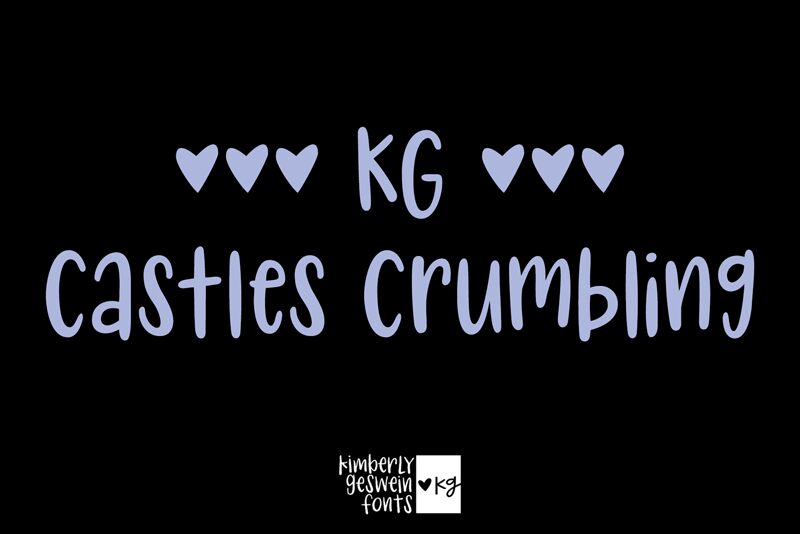
KG Castles Crumbling Normal
KG Castles Crumbling is a captivating, handwritten font crafted by the talented designer Kimberly Geswein. With its condensed, stylized strokes, this font exudes a sense of whimsical charm and vintage elegance. The unique character shapes and fluid transitions between letters create a visually striking and emotive aesthetic, evoking a sense of timelessness and imperfect beauty.
This versatile font lends itself well to a variety of design applications, from rustic and vintage-inspired projects to modern and minimalist designs. Its condensed width makes it an excellent choice for headlines, titles, and short-form text, allowing for a visually compelling and space-efficient presentation. KG Castles Crumbling's handwritten charm also makes it a suitable option for wedding invitations, greeting cards, and other personal or editorial projects where a touch of character and personality is desired.